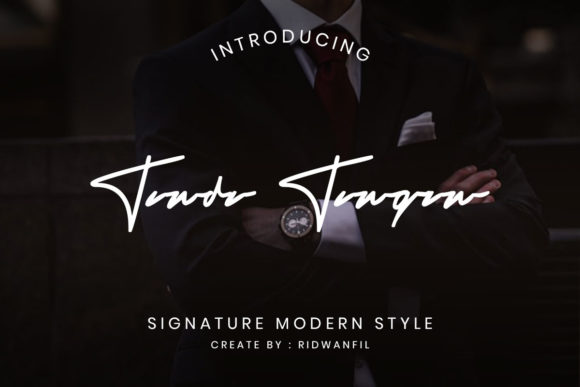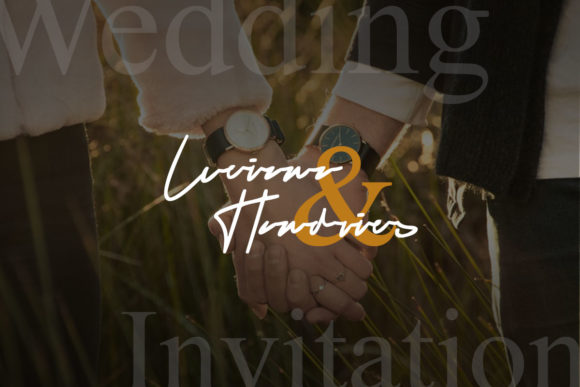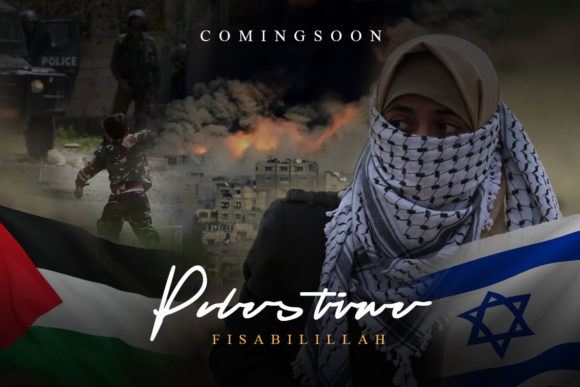
HomeScript FontsTanda Tangan Font Script Fonts Tanda Tangan Font FacebookXPinterestWhatsApp Tanda Tangan Font Poster 2 Tanda Tangan Font Poster 3 Tanda Tangan Font Poster 4 Tanda Tangan Font Poster 5 About Tanda Tangan Font Tanda Tangan is an incredibly beautiful script that will add a stunning flavor to your next design idea. DOWNLOAD NOW People also explored Brownie Font Carick Font Uncial Antiqua Pro Menta Font Renata Font Nordams Font Shallow Font Nigella Font Angelica Rytes Font 313 0 TagsTanda Tangan Font Previous articleMinervae FontNext articleKindora Script Font LEAVE A REPLY Cancel reply Comment: Please enter your comment! Name:* Please enter your name here Email:* You have entered an incorrect email address! Please enter your email address here Website: Save my name, email, and website in this browser for the next time I comment. Personal Use Free Brittish State Personal Use Free Read more about this font Milda Personal Use Free Read more about this font Lumber Personal Use Free Read more about this font Borg Personal Use Free Read more about this font BLOG Free Fonts Risk: Why Free Fonts Can Be Dangerous for Designers Free Fonts Risk: Why Free Fonts Can Be Dangerous for Designers Using free fonts is a common practice in web and graphic design. However, the... Top 7 Google Fonts Alternatives for Faster and Privacy-Friendly Web Design (2025) Where to Buy American Fonts Online in 2024 Free vs Paid Fonts: Why Investing in Premium Fonts Is Worth It